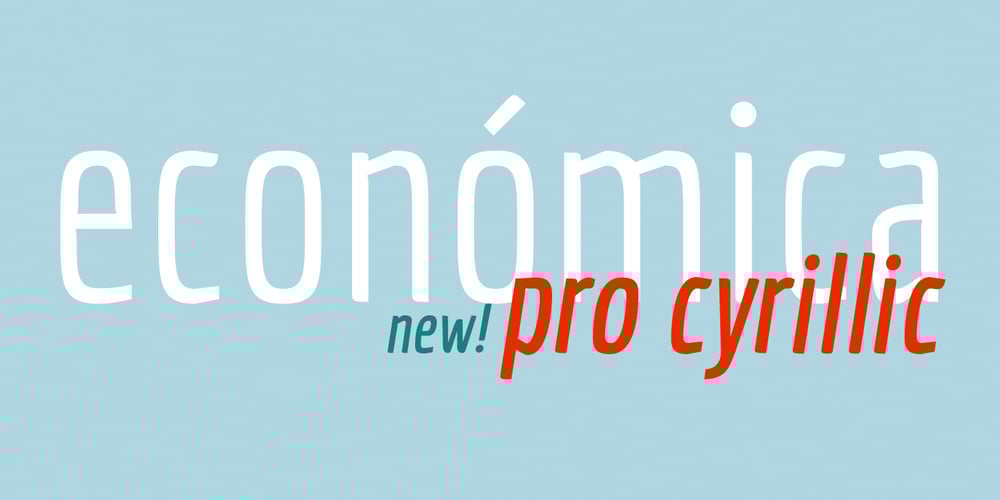
Economica Cyrillic PRO Font Family was designed by Vicente Lamónaca, Sergiy Tkachenko and published by Underground. Economica Cyrillic PRO contains 4 styles and family package options. Economica Pro is a font especially developed for design in complex situations: It is ideal for use in small sizes on screen and in print. It has been tested successfully for use in very small sizes without losing legibility. Its ink traps ensure smooth operation even on low quality papers. It is an ideal font for newspapers, news portals and all designs requiring space saving. Now also in Cyrillic!